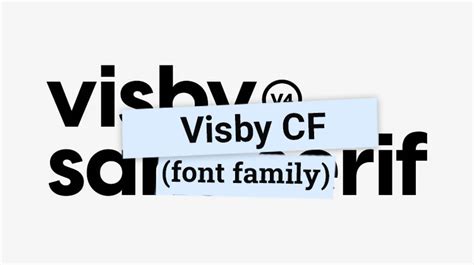
Visby Cf Font. This font is designed to carry an expressive and engaging character making this font very. It has eight weights in latin.
This font is designed to carry an expressive and engaging character making this font very. It has eight weights in latin. Web visby cf sans serif font. Web visby is a geometric sans serif typeface inspired by the stark beauty and crisp air of the arctic. Web visby cf is a font family inspired by the stark beauty of the arctic, with straight lines and sharp corners.
This font is designed to carry an expressive and engaging character making this font very. This font is designed to carry an expressive and engaging character making this font very. It has eight weights in latin. Web visby cf is a font family inspired by the stark beauty of the arctic, with straight lines and sharp corners. Web visby is a geometric sans serif typeface inspired by the stark beauty and crisp air of the arctic. Web visby cf sans serif font.